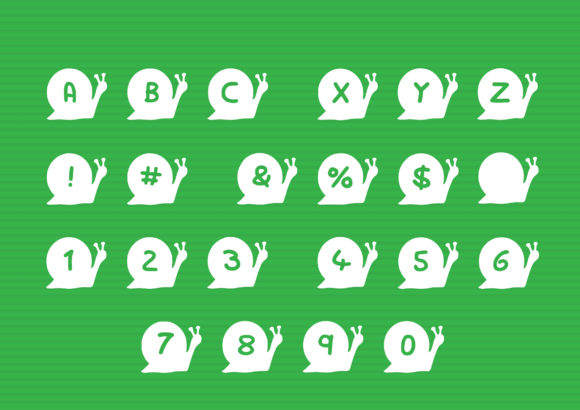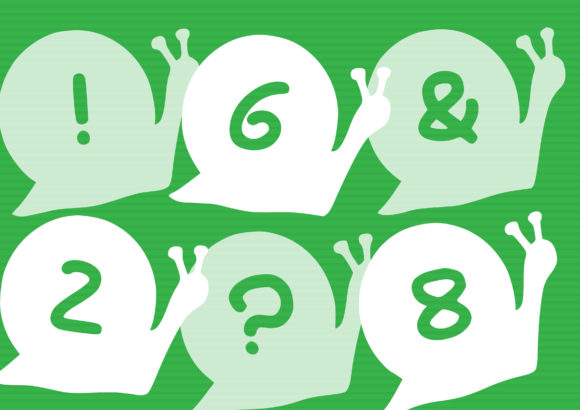
Introduction to Play Snail Font
Have you ever been stuck on a creative project, trying to find the perfect font to bring your ideas to life? You scroll through endless options, but nothing seems quite right. That’s when you stumble upon the perfect match – the Play Snail Font. This fun and entertaining decorative font is slowly making its way into the hearts of designers everywhere, and for good reason.
Whether you’re a seasoned pro or just starting out, the Play Snail Font is a valuable resource for any design project. With its high quality design and transparent background, it’s the perfect addition to any creative endeavor. And the best part? It’s available for a free download, making it accessible to designers of all levels.
Key Features of Play Snail Font
- High-quality design resource ideal for creative projects requiring unique typography.
- Features a transparent background, making it easy to integrate with any design.
- Designed with a playful and whimsical style, perfect for adding a touch of personality to your design.
- Supports resolutions up to 300 DPI, ensuring crisp and clear text display.
- Can be easily scaled to any size, making it a versatile design resource for various creative projects.
Honest Review: Play Snail Font
As a designer, I’m always on the lookout for high-quality design resources that can elevate my creative projects. The Play Snail Font is one such find, and I’m excited to share my honest review with you.
Here’s what works well:
- ✨ Unique and playful design style that’s perfect for adding a touch of whimsy to your projects
- ✨ Clear and readable font, even at smaller sizes
- ⚠️ Limited font styles and weights available
- ⚠️ No bold or italic versions of the font, which may limit its versatility
- ⚠️ Some users may find the font’s transparency background feature to be a bit glitchy
Overall, I’m impressed with the Play Snail Font’s potential to add a fun and creative touch to your design projects. While it may not be perfect, its unique design style and free download make it a valuable resource for designers. Just be aware of its limitations and use it accordingly.
Play Snail Font
The Play Snail Font is a high-quality design resource that can be used for various creative projects. It’s available for free download, making it an excellent addition to any design collection.
The Play Snail Font is ideal for use on transparent backgrounds, making it perfect for creating eye-catching designs. Common use cases include branding, logos, and social media graphics. Tips for getting the most out of the font include using it in combination with other high-quality design resources and experimenting with different font sizes and colors.
While Play Snail Font has a playful, snail-inspired design, Alex Brush has a more elegant and sophisticated feel, making it suitable for use in wedding invitations, greeting cards, and other high-end designs.
Great Vibes is a high-quality, script font that is perfect for adding a touch of elegance to your design project. It features a transparent background and is available for free download, making it a great design resource for creatives.
Compared to Play Snail Font, Great Vibes has a more refined and sophisticated feel, making it suitable for use in wedding invitations, event promotions, and other high-end designs.